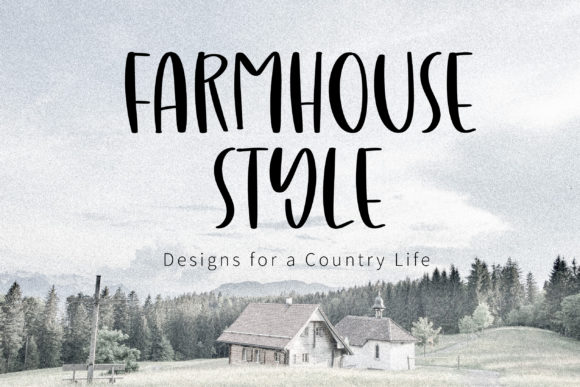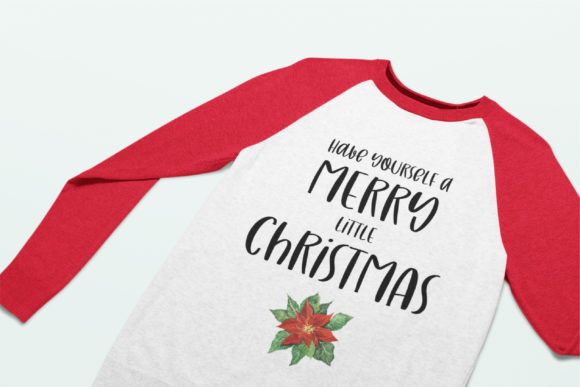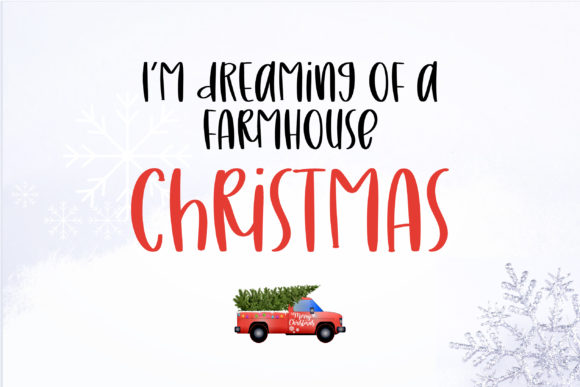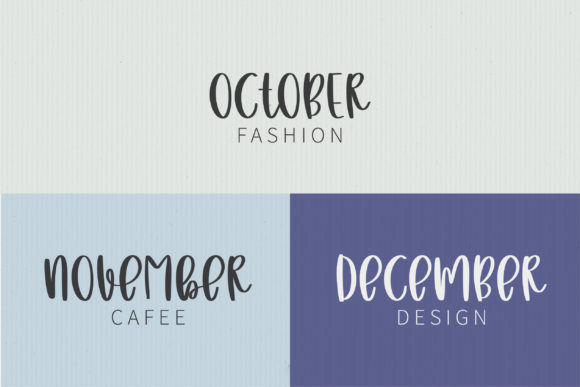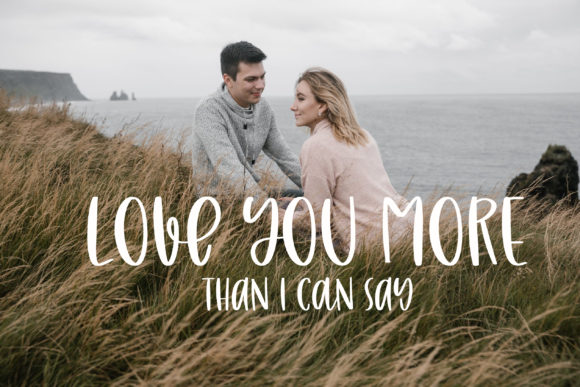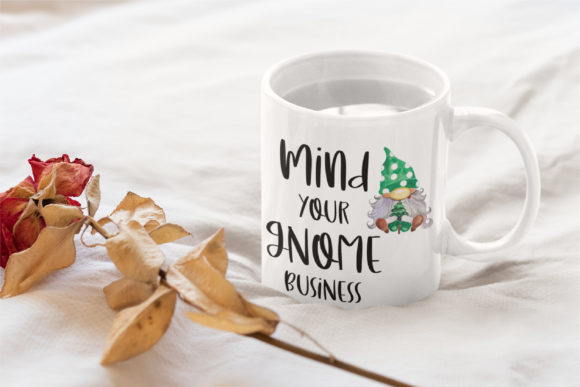
Introduction to Naughty Gnomes Font
As designers, we’ve all been there – staring at a blank canvas, waiting for inspiration to strike. And then, suddenly, it hits us. A spark of creativity ignites, and we’re off and running. For me, that moment came when I stumbled upon the enchanting Naughty Gnomes Font. Its whimsical charm and natural, handwritten style had me hooked from the very start.
The beauty of this font lies in its simplicity and versatility. Whether you’re working on a high-quality design project or a fun, creative endeavor, Naughty Gnomes Font is the perfect companion. With its transparent background, it’s easy to layer and manipulate, making it a valuable resource for any designer looking to add a personal touch to their work.
Key Features of Naughty Gnomes Font
- Unique and playful design, ideal for creative projects and children’s content
- High-quality font with a transparent background, allowing for seamless integration into any design
- Perfect for adding a touch of whimsy and personality to your designs, from logos to illustrations
Honest Review: Naughty Gnomes Font
As a designer, I’m always on the lookout for unique and high-quality design resources that can elevate my creative projects. The Naughty Gnomes Font is one such find that has caught my attention.
What works well about this font is its whimsical and playful nature, perfect for adding a touch of magic to children’s book covers, party invitations, or any other design project that needs a dash of fun.
- ⚠️ The font may not be suitable for professional or corporate designs due to its playful nature.
- ⚠️ Some users may find the font’s quirky style a bit overwhelming or difficult to read in certain contexts.
Overall, I’m impressed with the Naughty Gnomes Font and would recommend it to designers looking to add some creative flair to their projects. Just remember to use it thoughtfully and in the right context to get the best results.
The Naughty Gnomes Font is a high-quality design resource that can add a touch of whimsy and personality to your creative project. This free download features a unique and playful style that is perfect for designers looking to add some visual interest to their work.
Common Use Cases for Naughty Gnomes Font
The Naughty Gnomes Font is perfect for a variety of design projects, including:
- Children’s books and educational materials
- Marketing and advertising materials
- Party and event invitations